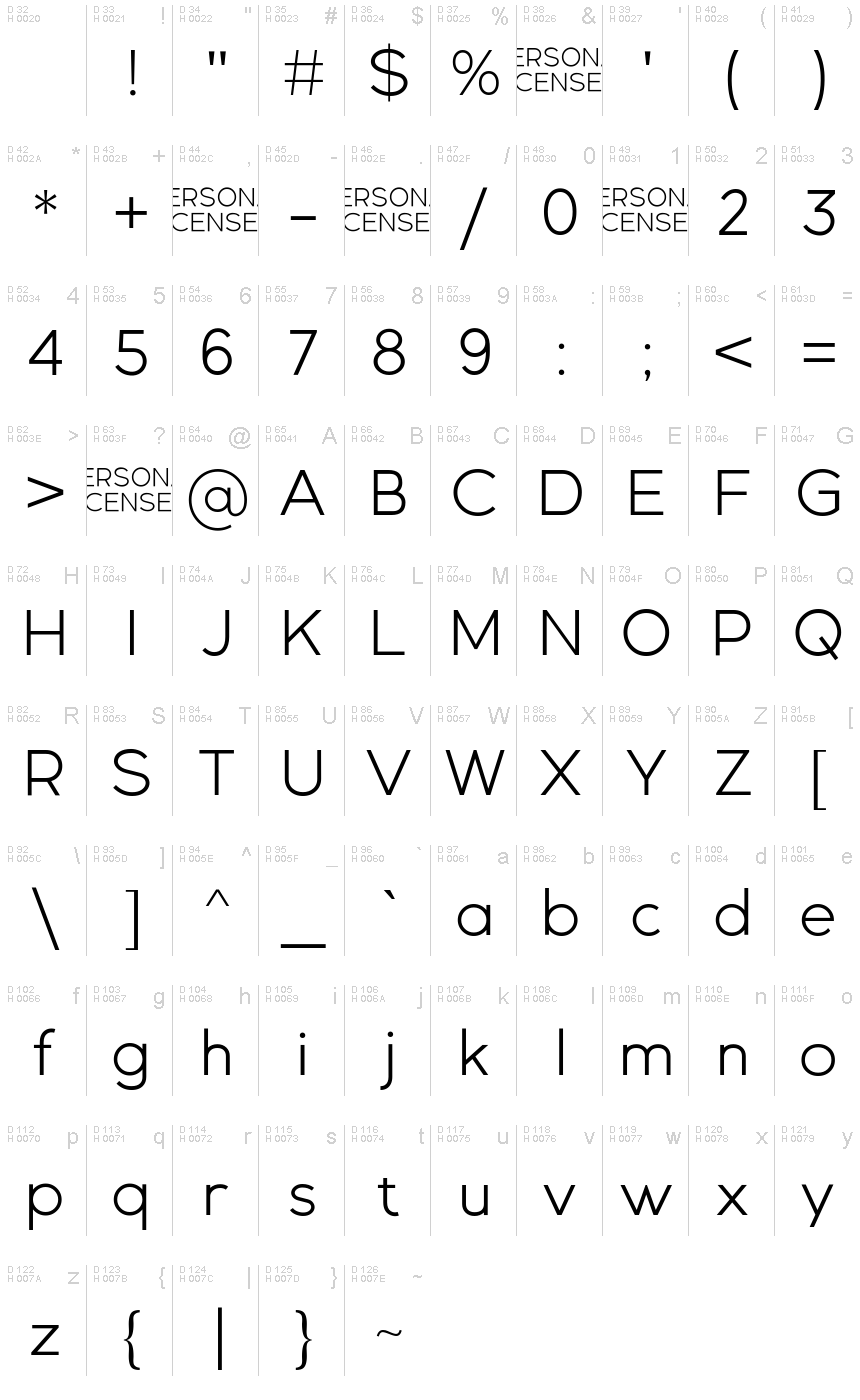
Gexo Sans Light
Gexo Sans Light, crafted by the creative Java Pep, is a testament to the elegance of minimalism in typography. This member of the Gexo Sans family demonstrates a refined clarity with its sans serif styling, offering a breath of freshness to any design. The font's gentle strokes convey a sense of lightness and subtlety that can elevate the visual hierarchy of text without overpowering it.
Its aesthetic appeal lies in its clean lines and open forms, making it highly legible and versatile. Ideal for modern interfaces, sophisticated branding materials, and minimalistic editorial layouts, Gexo Sans Light brings forth an air of sophistication and contemporary chic that can seamlessly blend into diverse design landscapes. Whether it graces the pages of a boutique magazine or serves as the cornerstone for digital platforms looking to communicate with effortless grace, this font stands out for its understated yet impactful character.